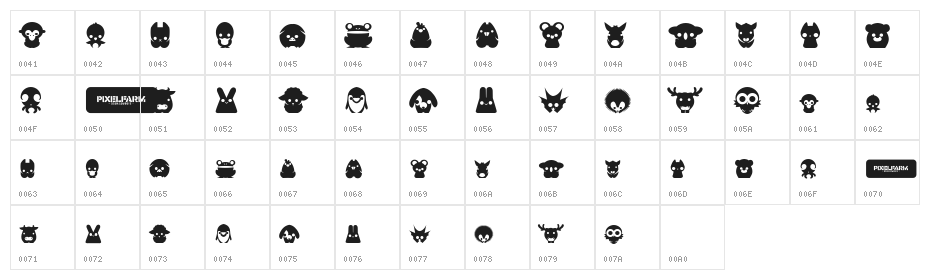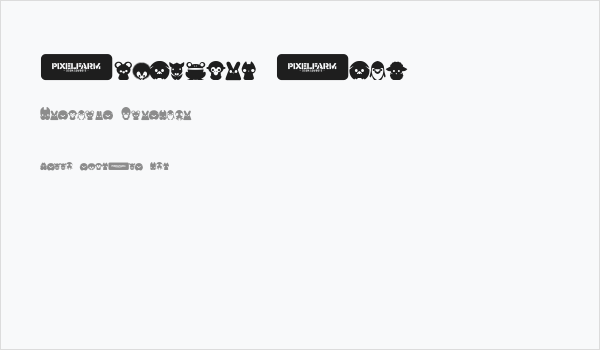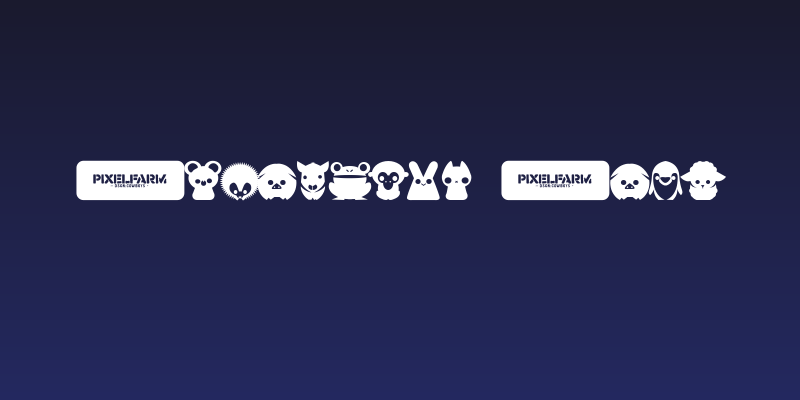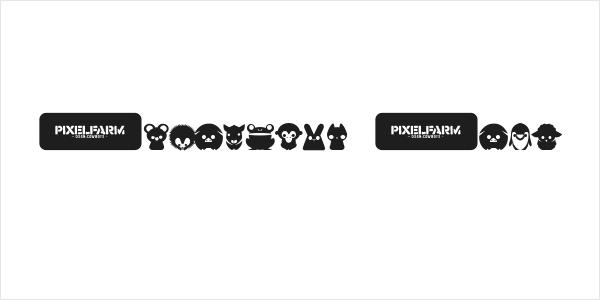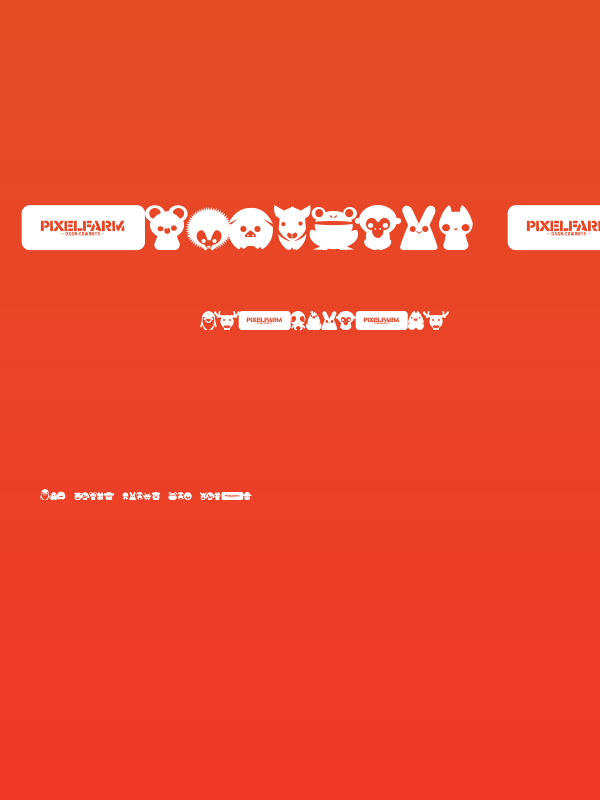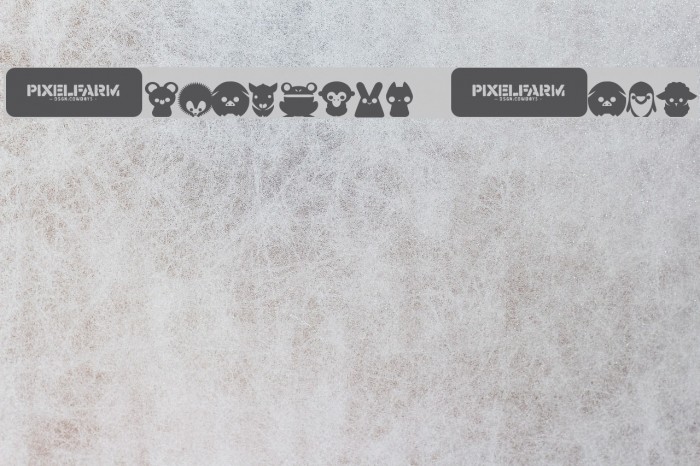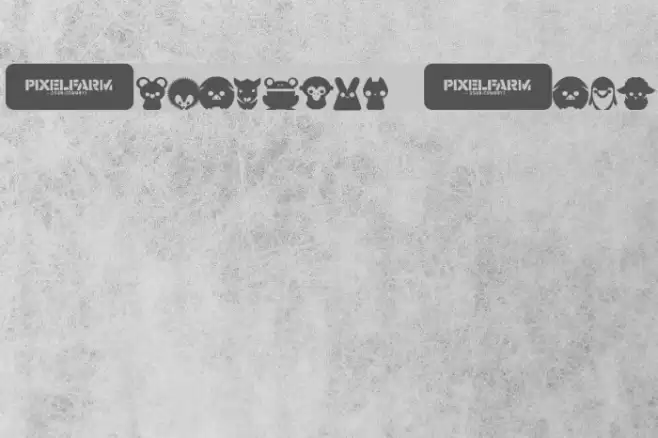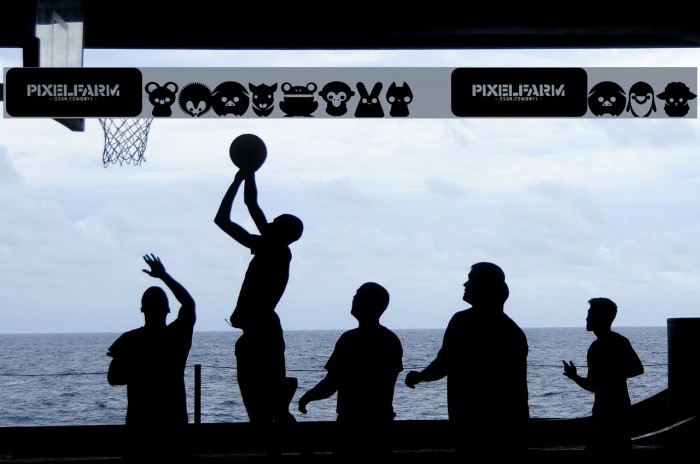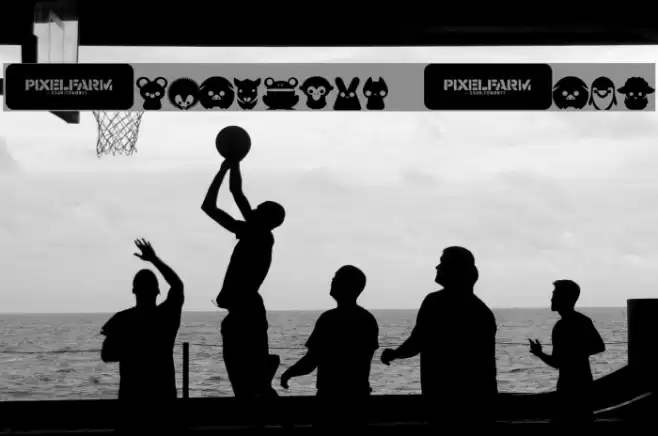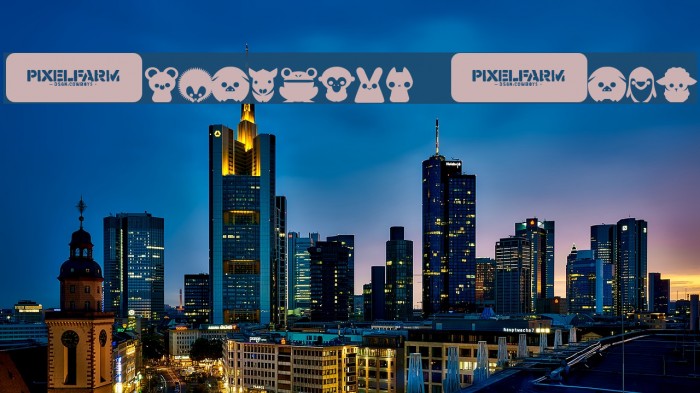
Pixelfarm Pets Font
Pixelfarm Pets Description
A playful decorative font composed of solid black animal silhouettes, each character represented by a unique cartoon pet or animal head, with simple geometric shapes and minimal facial features.
| Overall Style | Playful, Decorative, Whimsical |
| Use Case | Logos, Headlines, Posters, Children’s content |
| Proposed Projects | Children’s books, educational materials, pet shop branding, playful posters, party invitations. |